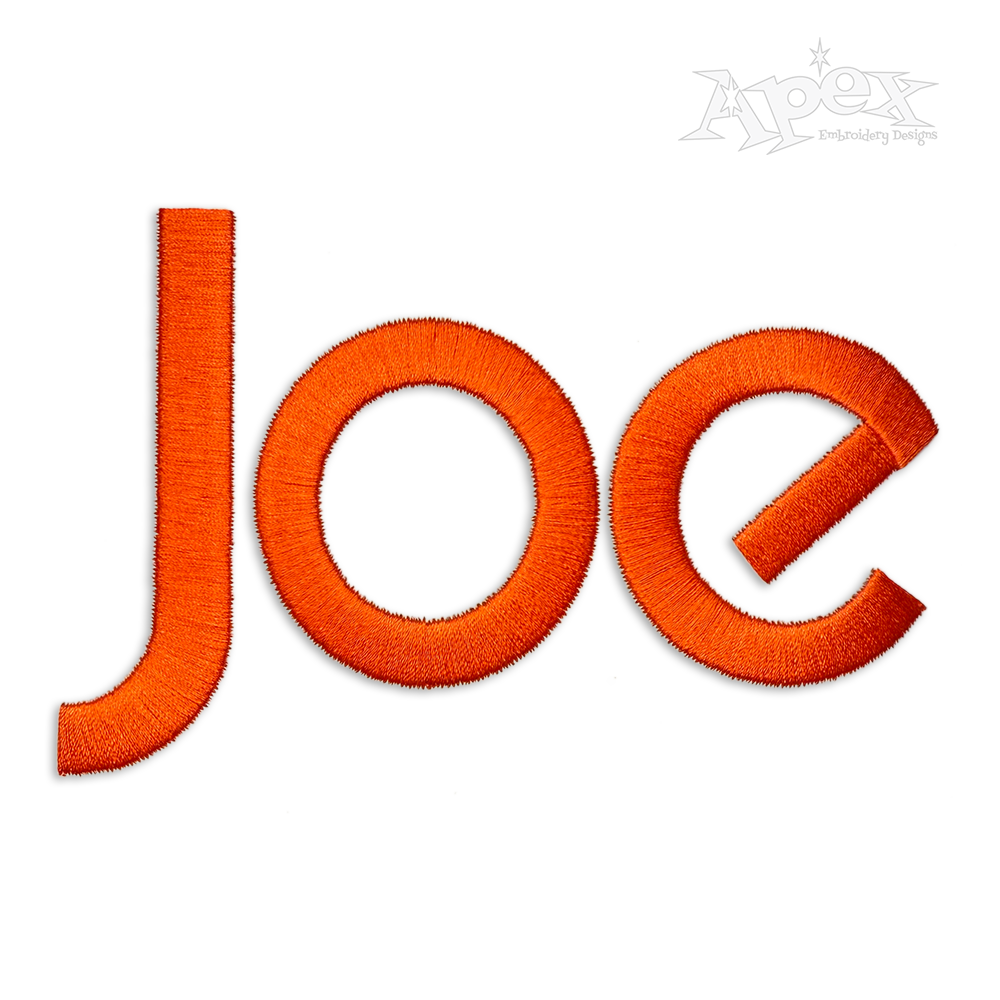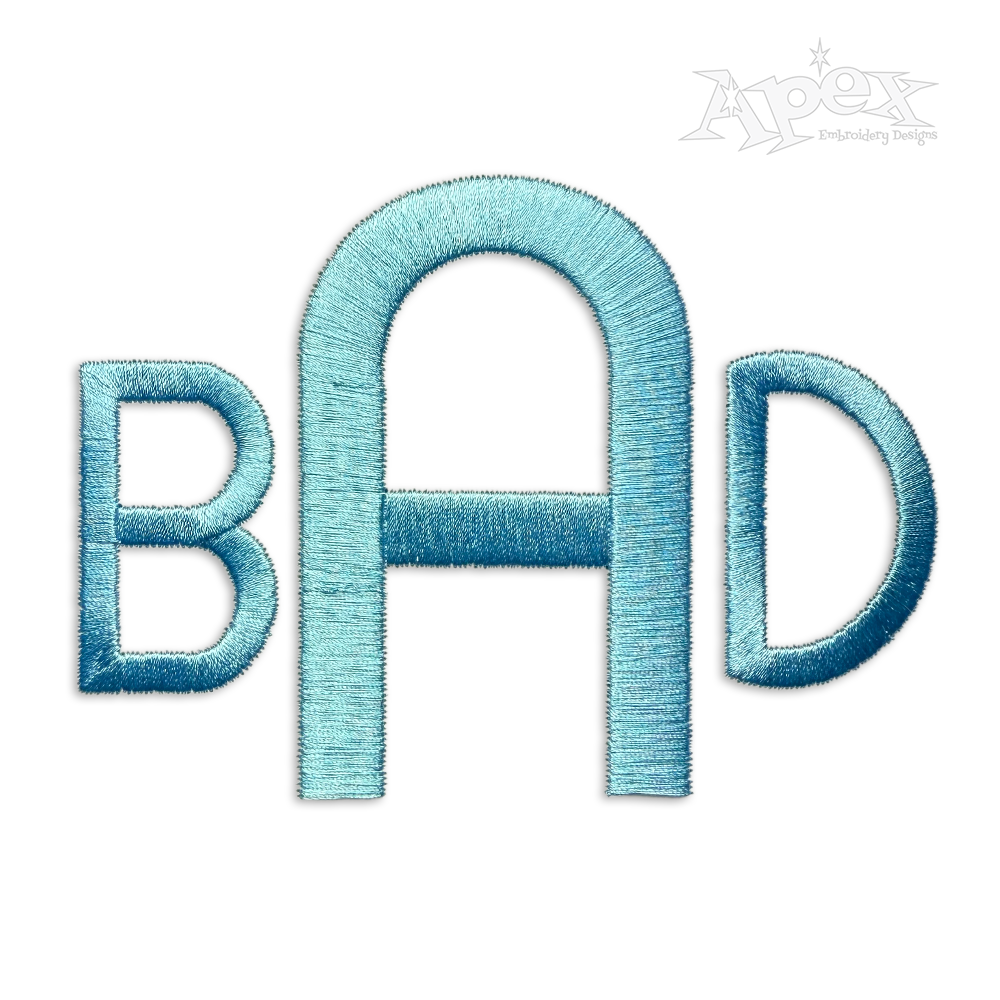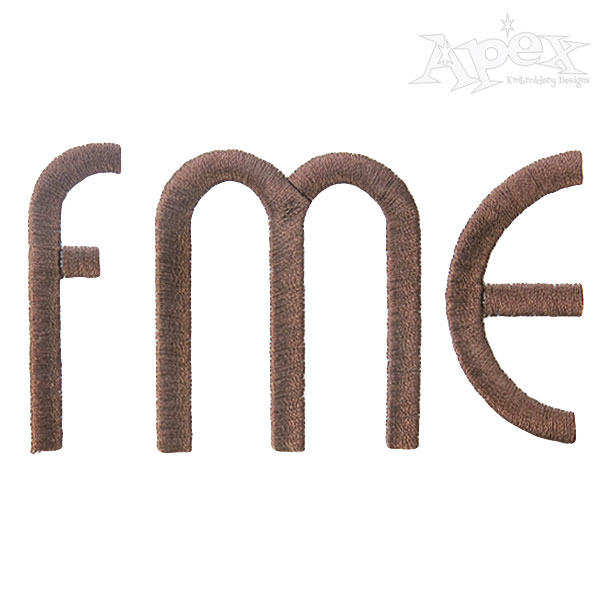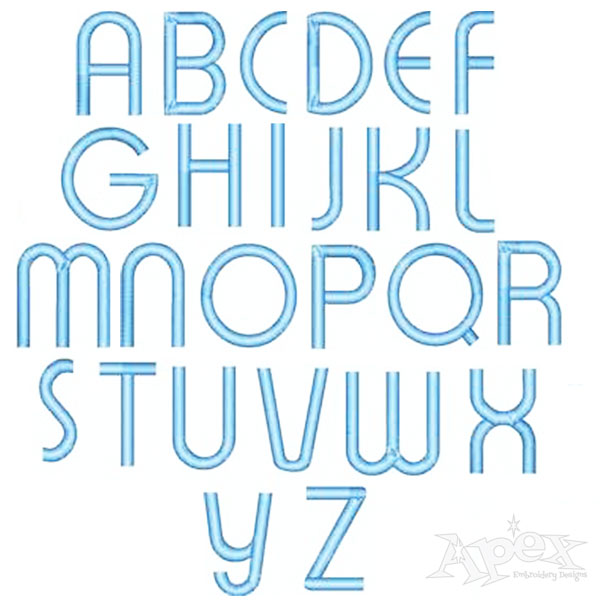
Retro Braxton Embroidery Font
Rooted in the golden era of collegiate athletics and tailored mid-century haberdashery, the Retro Braxton Embroidery Font was digitized to bring confident, nostalgic character to modern stitch craft. We envisioned a lettering suite that harmonizes athletic boldness with refined vintage proportions—reminiscent of chain-stitched varsity jackets, weathered canvas duffels, and classic sporting pennants. Every curve and stem is meticulously calibrated to build tangible dimension on the fabric, resulting in an heirloom-grade satin stitch alphabet that feels commanding, structured, and effortlessly timeless.
Project Ideas for Retro Braxton
The masculine geometry and vintage athletic cadence of Retro Braxton make it an exceptional choice for personalized gifting, customized menswear, and heirloom children's keepsakes:
- Custom Menswear & Outerwear: Transform rugged denim overshirts, fleece pullovers, twill ball caps, and collegiate-style bomber jackets with crisp family surnames or bold initials.
- Heritage Travel Gear: Elevate waxed canvas weekender bags, structured dopp kits, and leather-trimmed garment duffels with tailored, durable monogramming.
- Bespoke Home & Fireside Linens: Stitch bold initials into heavy wool stadium throws, plush waffle-weave robes, or tailored guest towels.
- Boys' Keepsakes & Youth Gear: Personalize school backpacks, vintage camp blankets, baseball gear bags, and varsity-style youth hoodies with an enduring mid-century aesthetic.
Achieving a balanced embroidery layout depends on understanding letterform scale and garment anatomy:
- Left Chest Placements: The 2-inch alphabet provides the perfect proportion on polo shirts, lightweight jackets, and sweaters, sitting comfortably 7 to 9 inches down from the left shoulder seam.
- Direct-to-Pocket & Cuff: The lower profile of the 2-inch set aligns crisply across shirt cuffs, above breast pockets, or along the flap of heavy utility aprons.
- Center Front & Back Yokes: Leverage the 3.5-inch scale across the upper chest of athletic sweatshirts or centered horizontally between the shoulder blades on denim jackets.
- Diagonal Cornering on Linens: Orient a single initial diagonally across the lower-right corner of heavy canvas utility totes or woven stadium blankets for an authentic vintage sports club aesthetic.
Retro Braxton Craft & Letterform Details
Digitizing a font with mid-century athletic DNA demands far more than converting flat typography into stitches. Retro Braxton relies on deliberate, multi-layered foundation planning. We engineered dual-underlay scaffolding—combining perpendicular edge-run underlays with stabilizing center tatami grids—to lock fabric fibers in place and eliminate edge puckering before the visible satin stitching begins.
Each letterform features dynamic stitch angle splitting along the curves and intersections, allowing the satin thread to refract light naturally as it turns the corner of an 'R' or sweeps through the bowl of a 'b'. Column widths are generously balanced to preserve structural legibility on heavy knits and textured canvas, while travel stitches are tucked cleanly within the embroidery path to eliminate stray jump stitches. The result is a buttery, continuous satin flow that feels rich to the touch and stitches with whisper-quiet precision from machine start to tie-off.